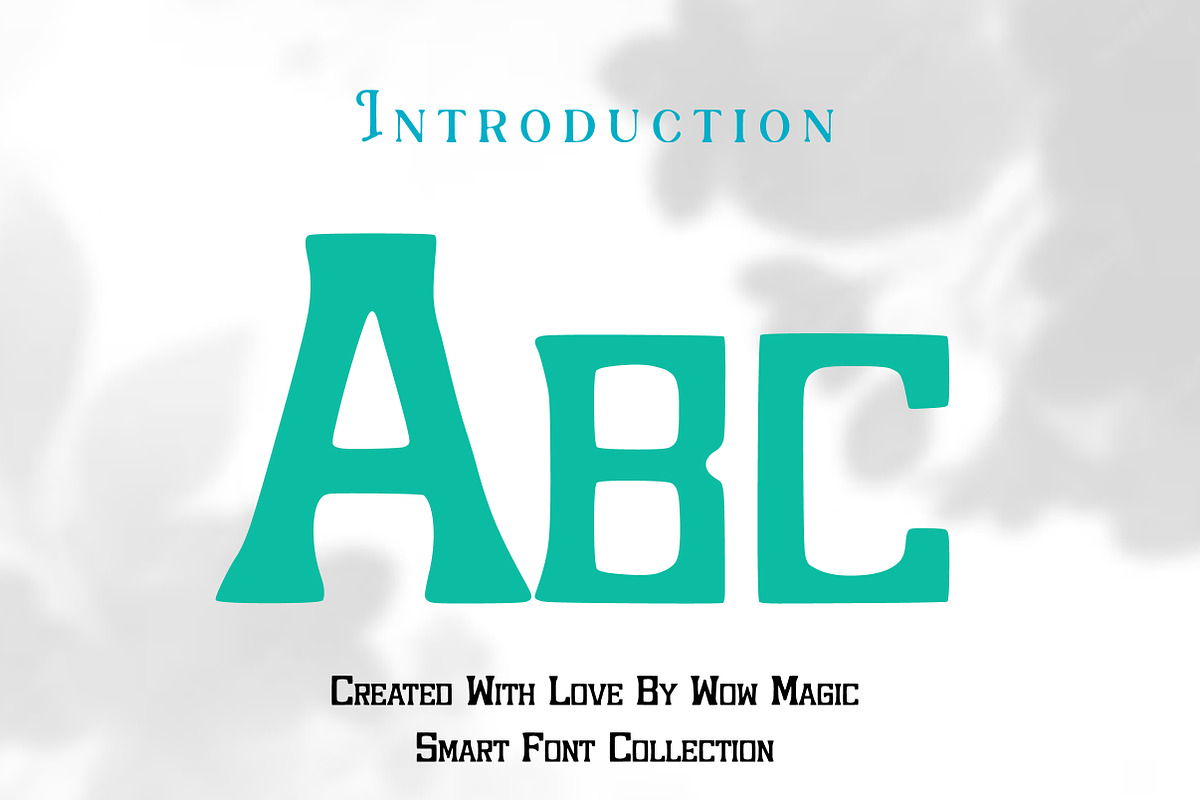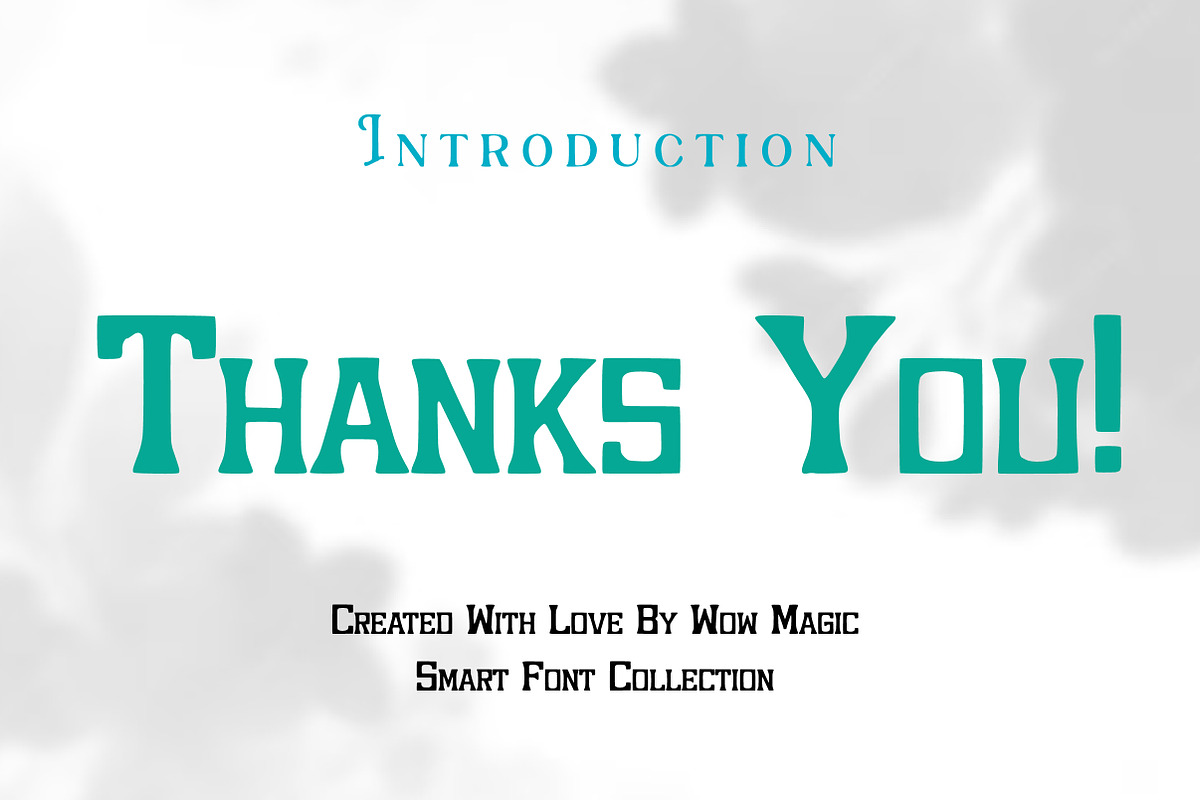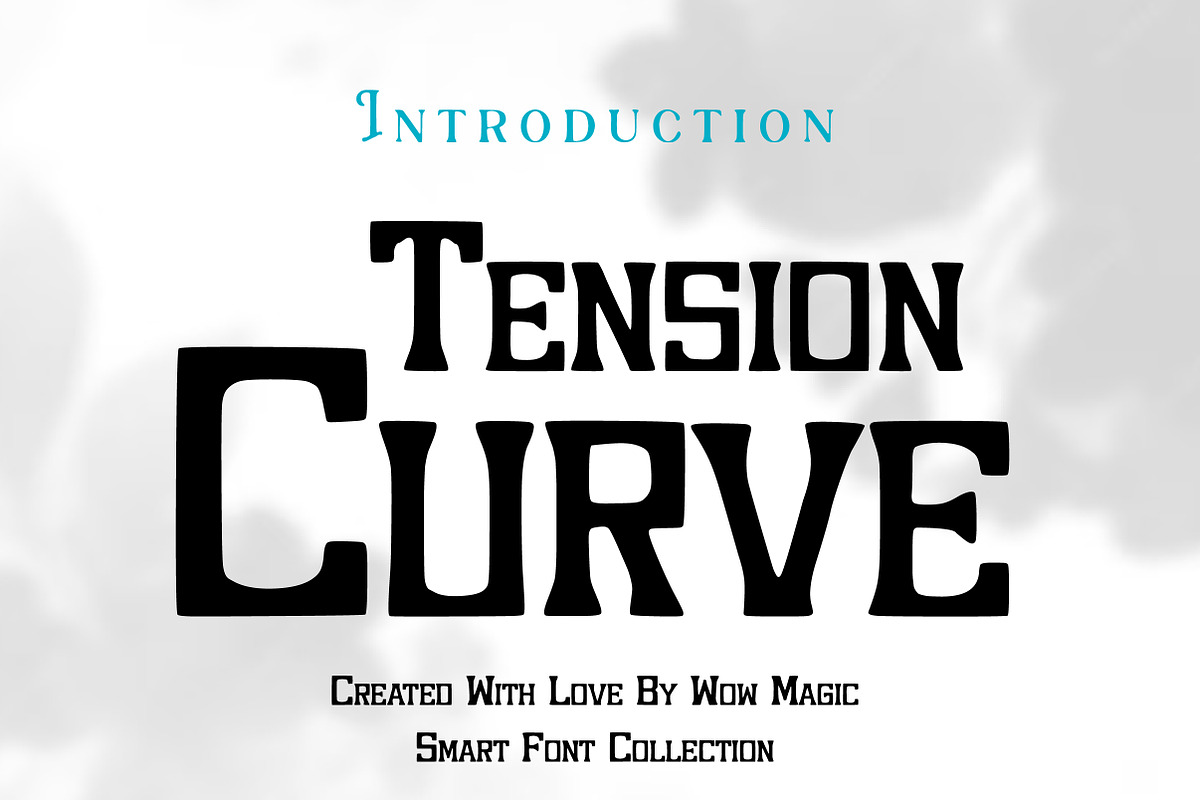
Tension Curve
Tension Curve is a striking vintage serif display font featuring bold strokes, dramatic curves, and a distinctive retro character. The font blends classic western-inspired letterforms with strong typographic tension, creating a powerful and memorable visual style.
Its unique structure makes it ideal for logos, posters, headlines, branding, packaging, and vintage-themed designs. The bold presence and curved serif details give the typeface a nostalgic yet stylish personality that stands out in both print and digital projects.
Whether you're designing retro branding, western-style posters, product packaging, or bold editorial headlines, Tension Curve delivers a confident and expressive typographic look that adds character and impact to your design.